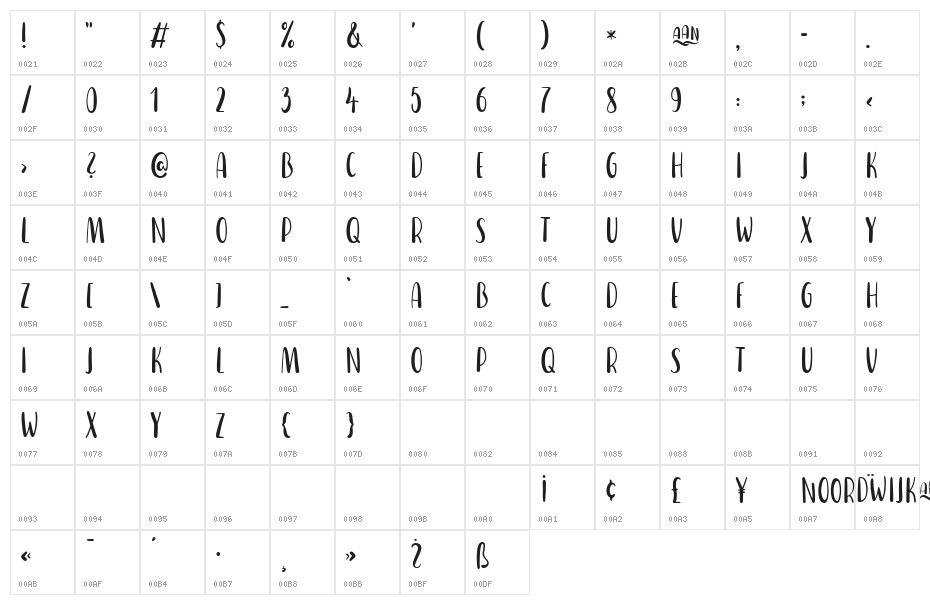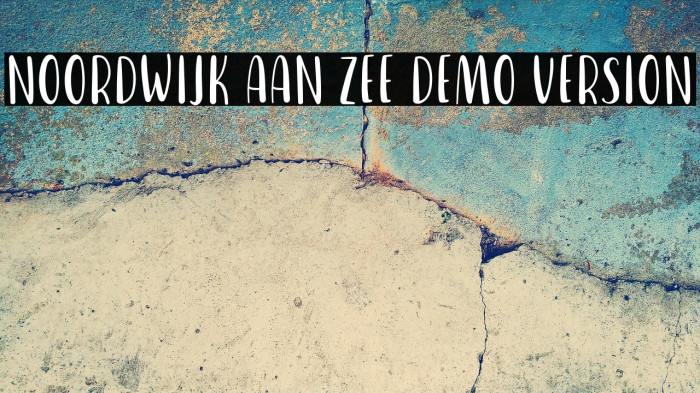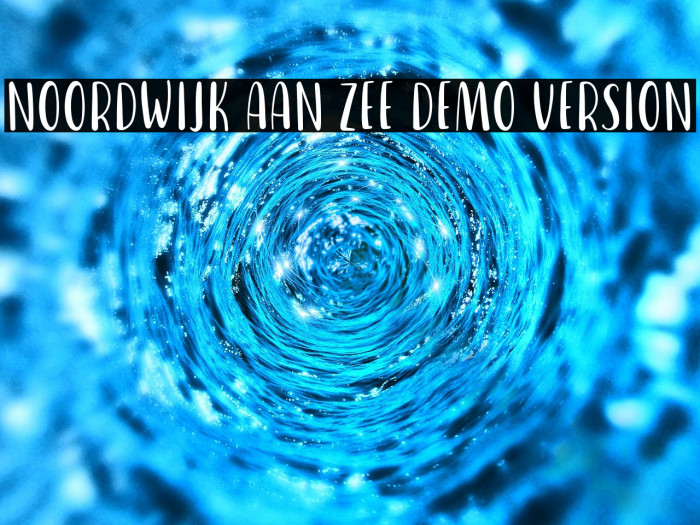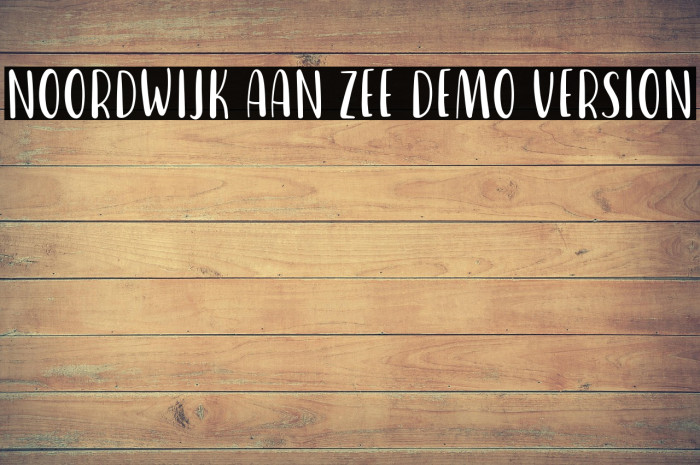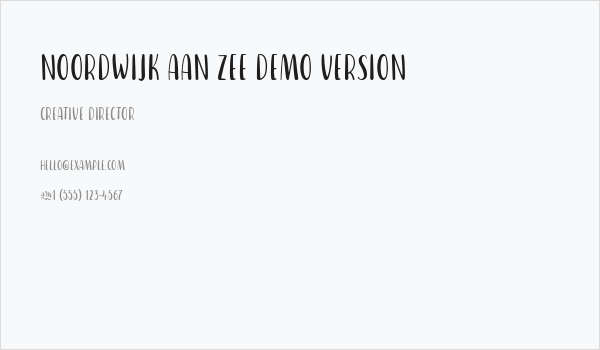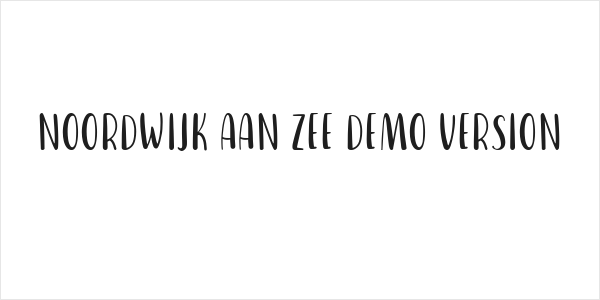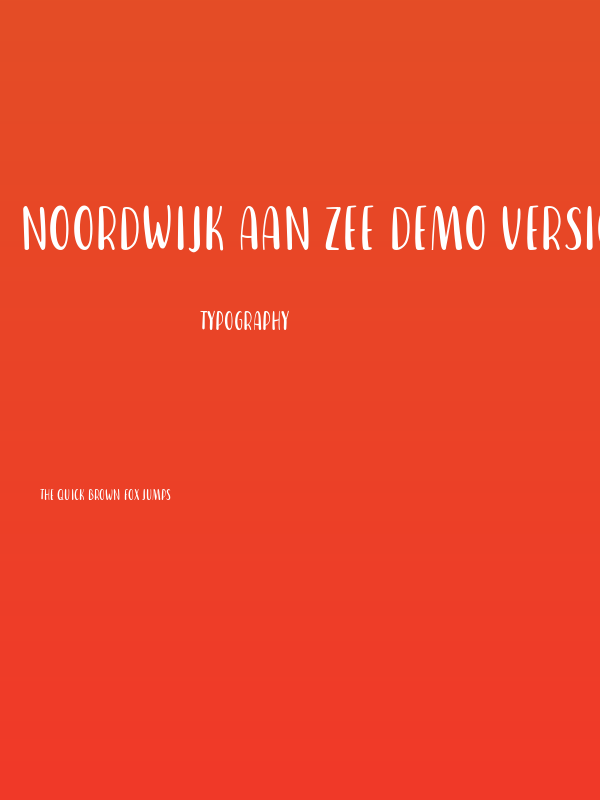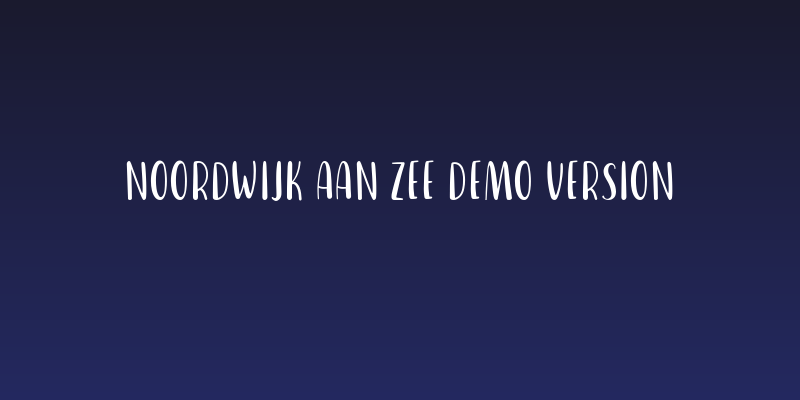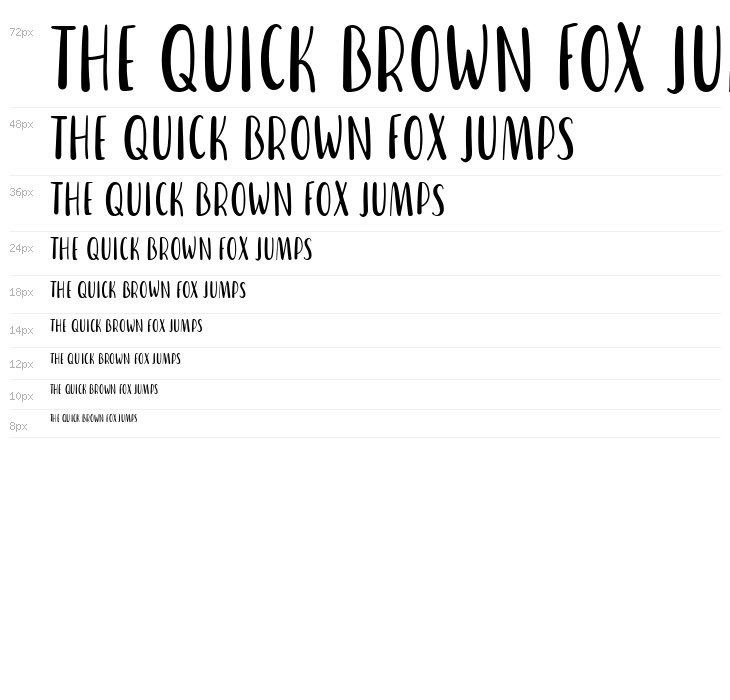
Noordwijk aan Zee Demo Version Font
Noordwijk aan Zee Demo Version Description
This font features a playful and casual handwritten style, characterized by its tall, narrow letters with rounded edges. The strokes are consistent in width, giving it a uniform appearance. The uppercase and lowercase letters maintain a cohesive look, with a slight slant that adds to its informal charm. The numerals and special characters follow the same design principles, ensuring a harmonious overall aesthetic. This font is ideal for projects that require a friendly and approachable feel, such as invitations, greeting cards, or playful branding materials.
Overall StyleCasual
Use CaseHeadlines, Logos, Invitations
Proposed ProjectsIdeal for invitations, greeting cards, playful branding, and casual design projects.